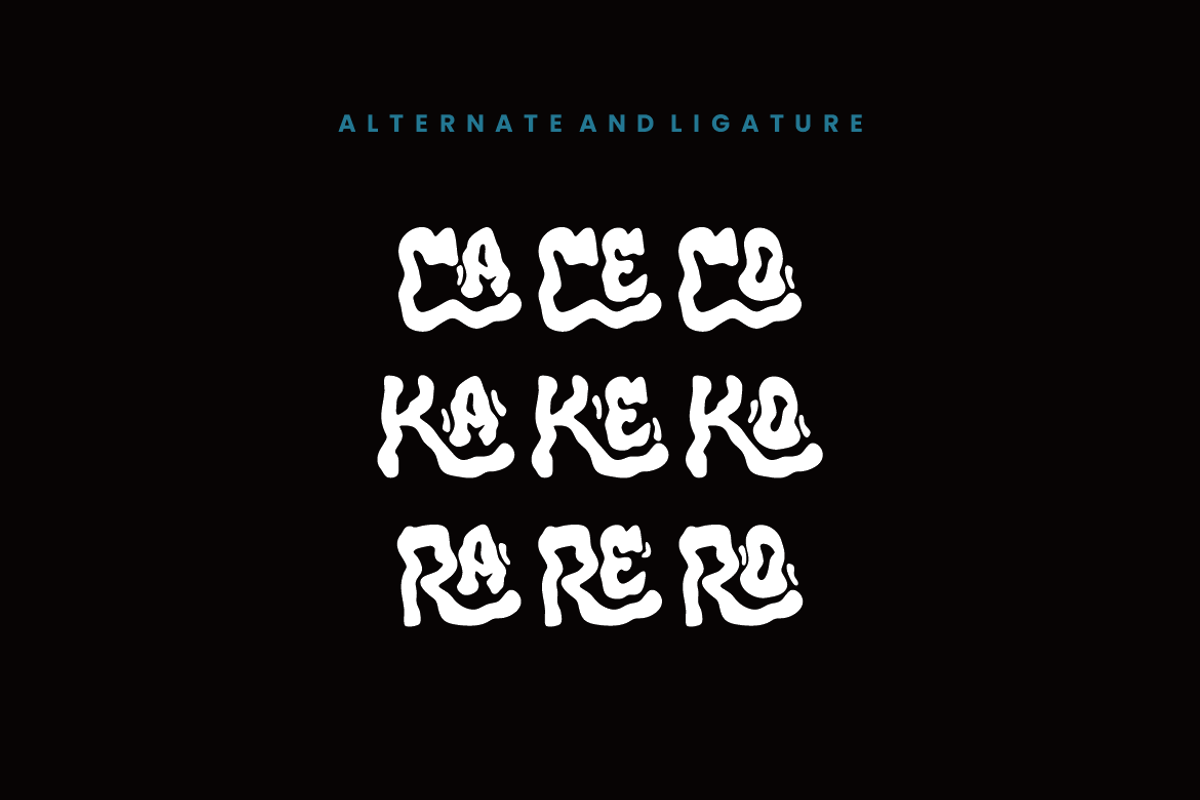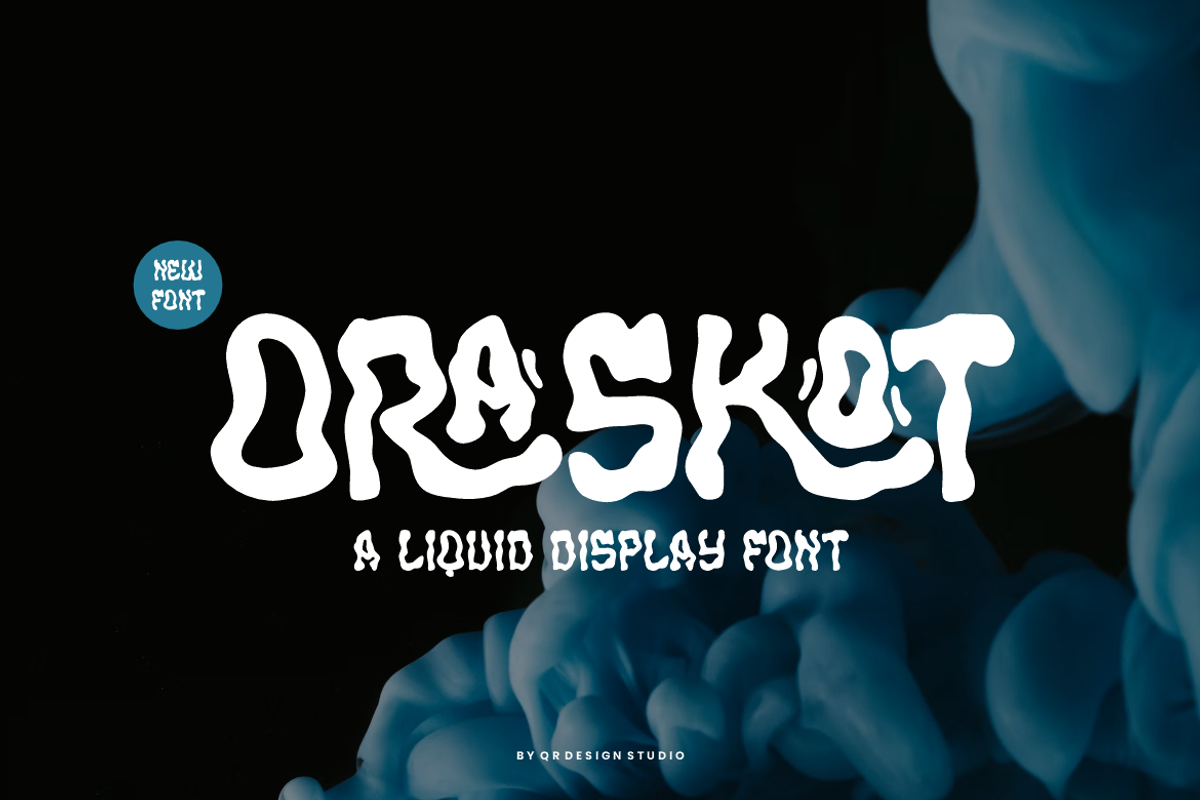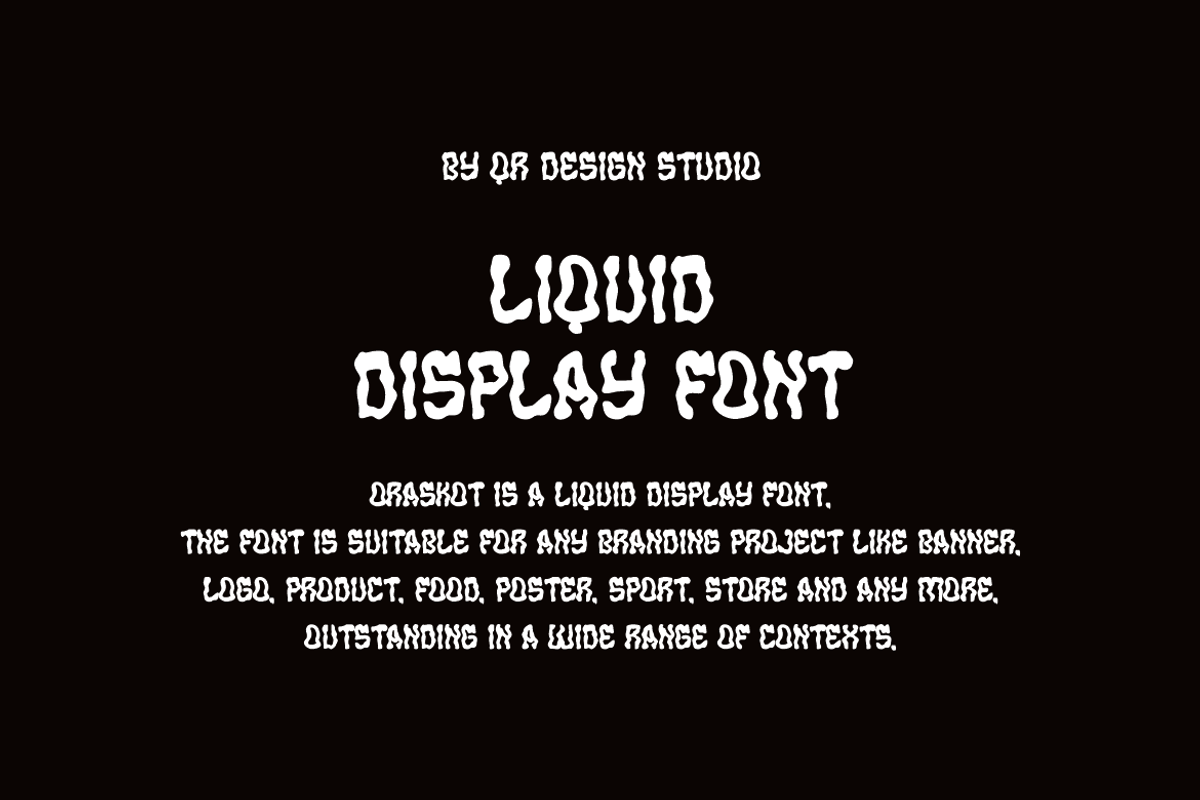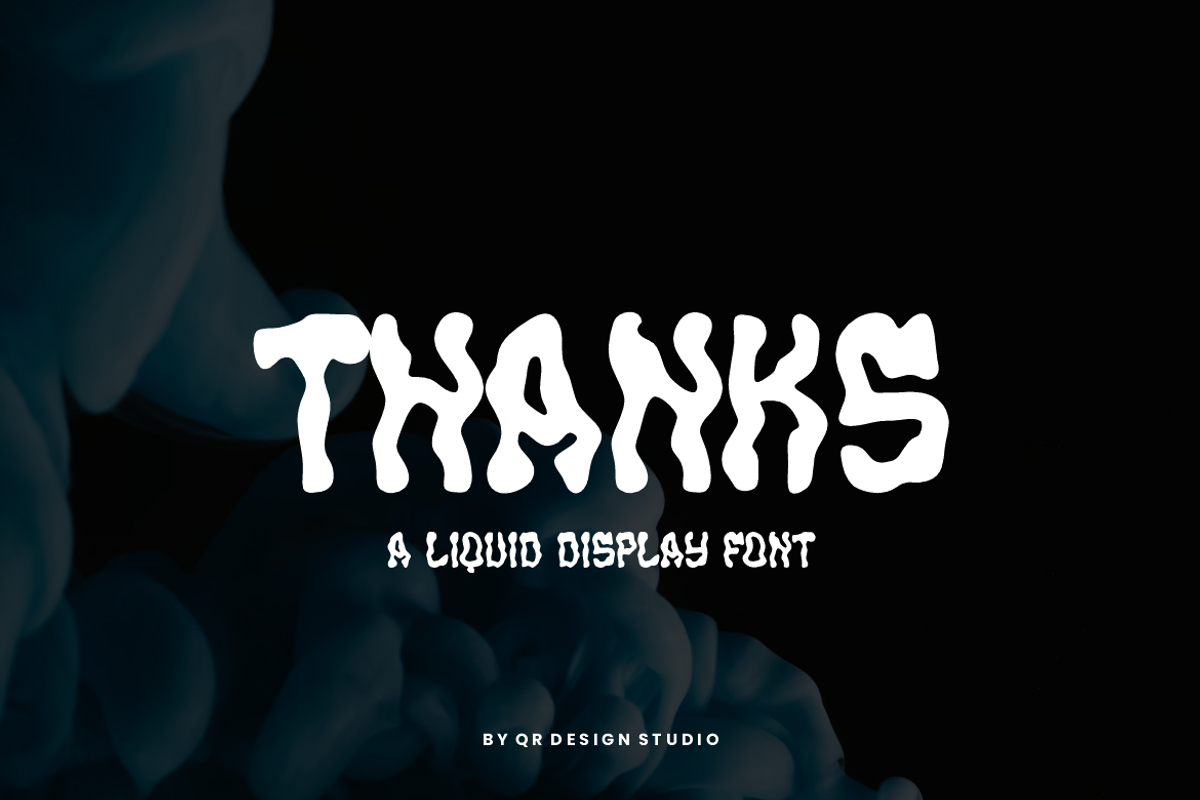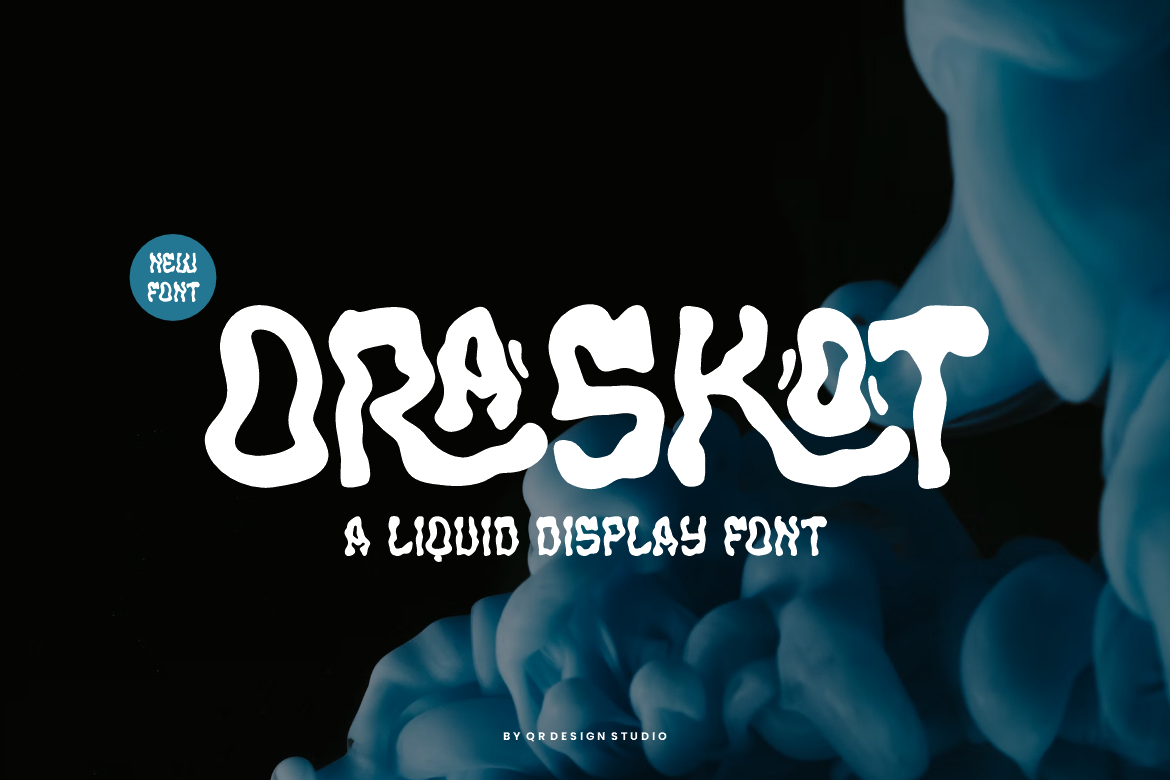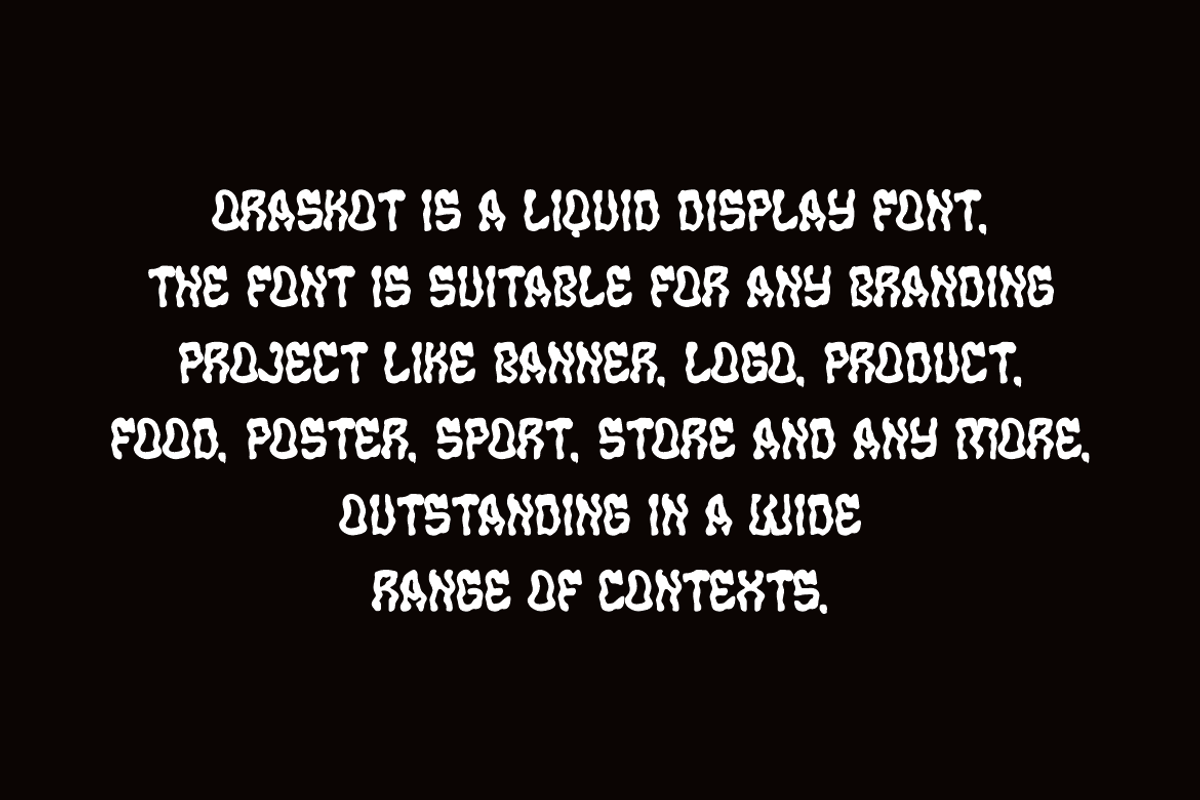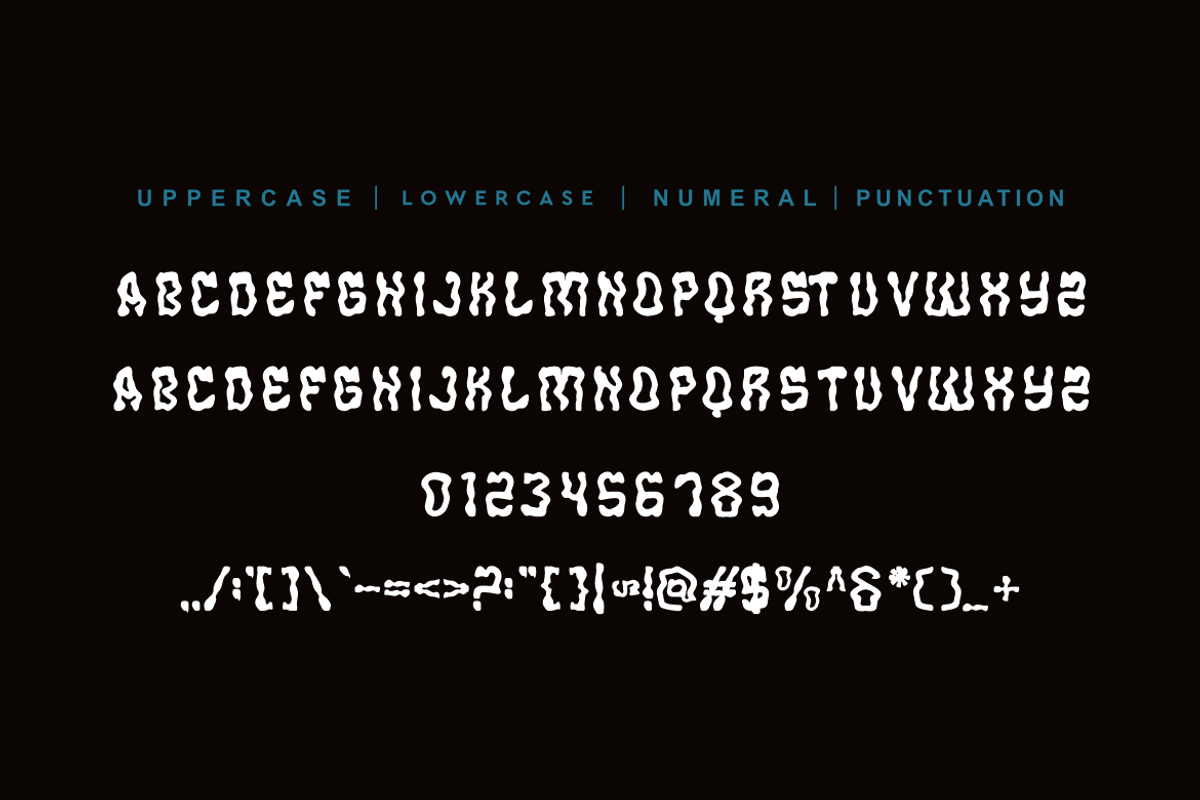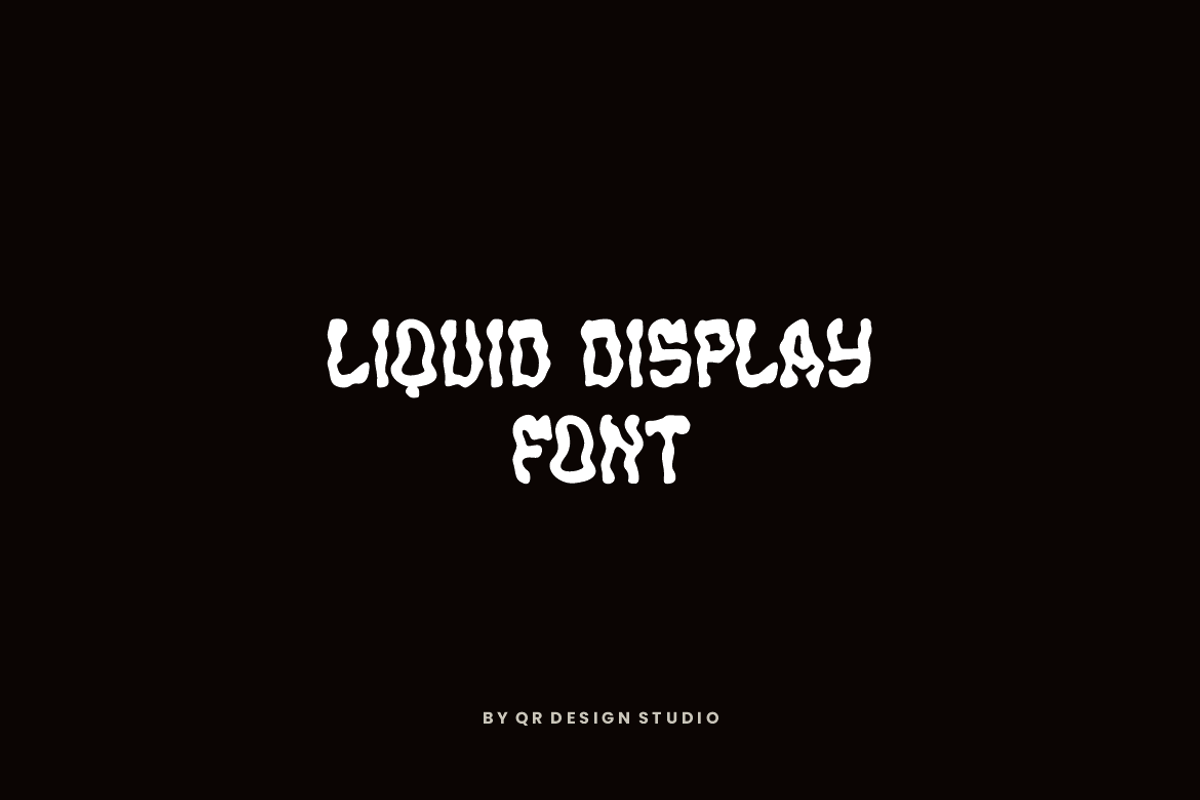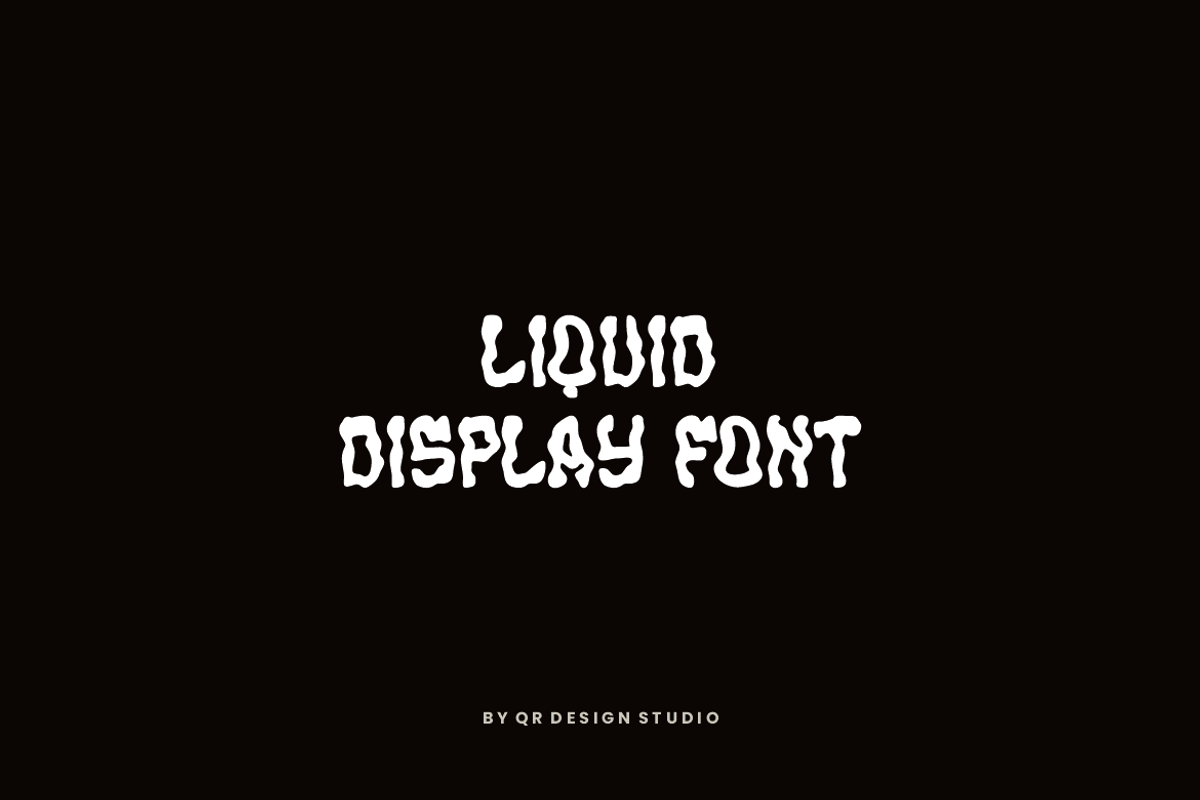
Oraskot - Liquid Display Font
Oraskot Font is a dedcorative and authentic display font. The font is suitable for any branding project like poster, logo, sport, and many more. Outstanding in a wide range of contexts.